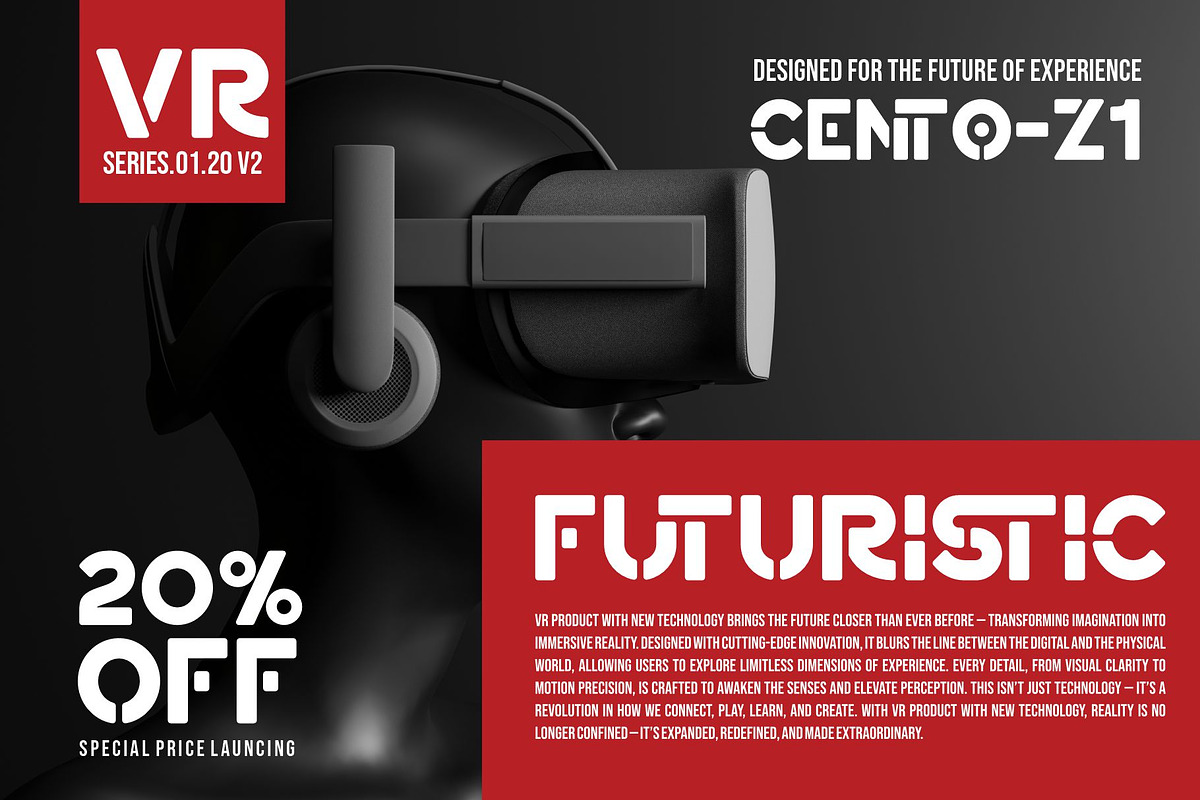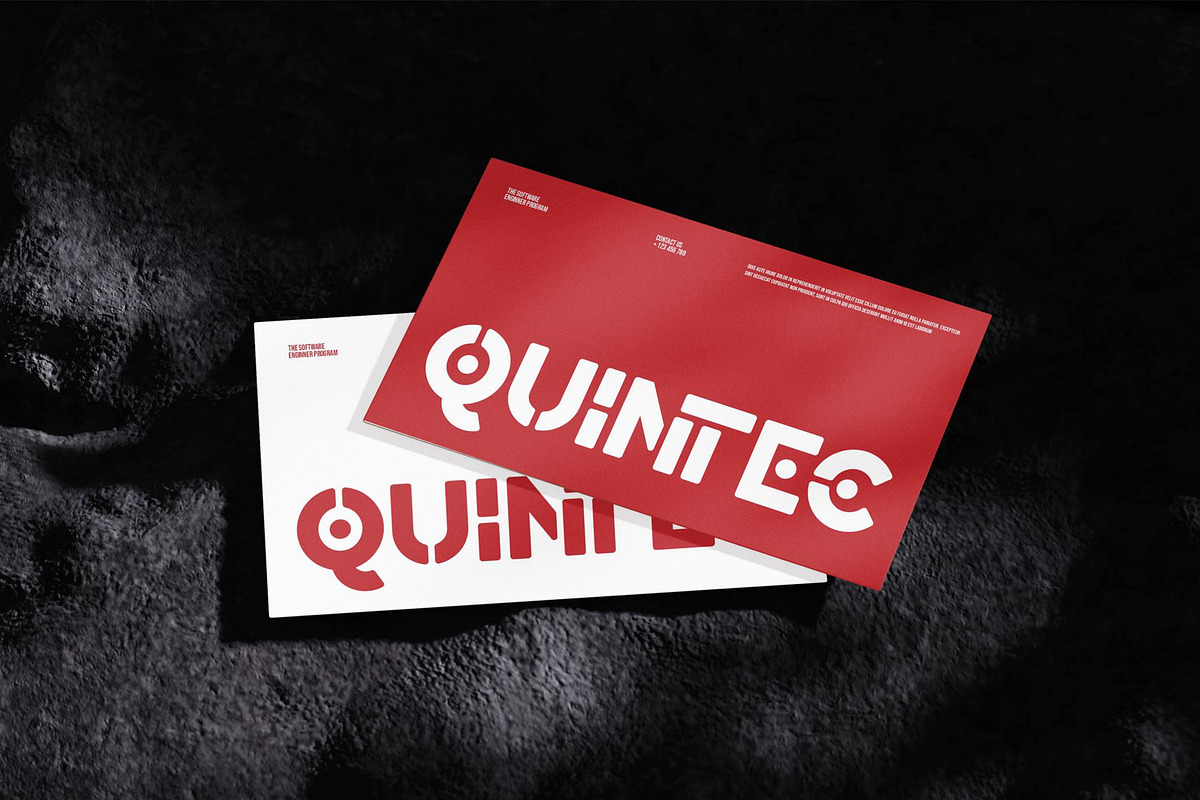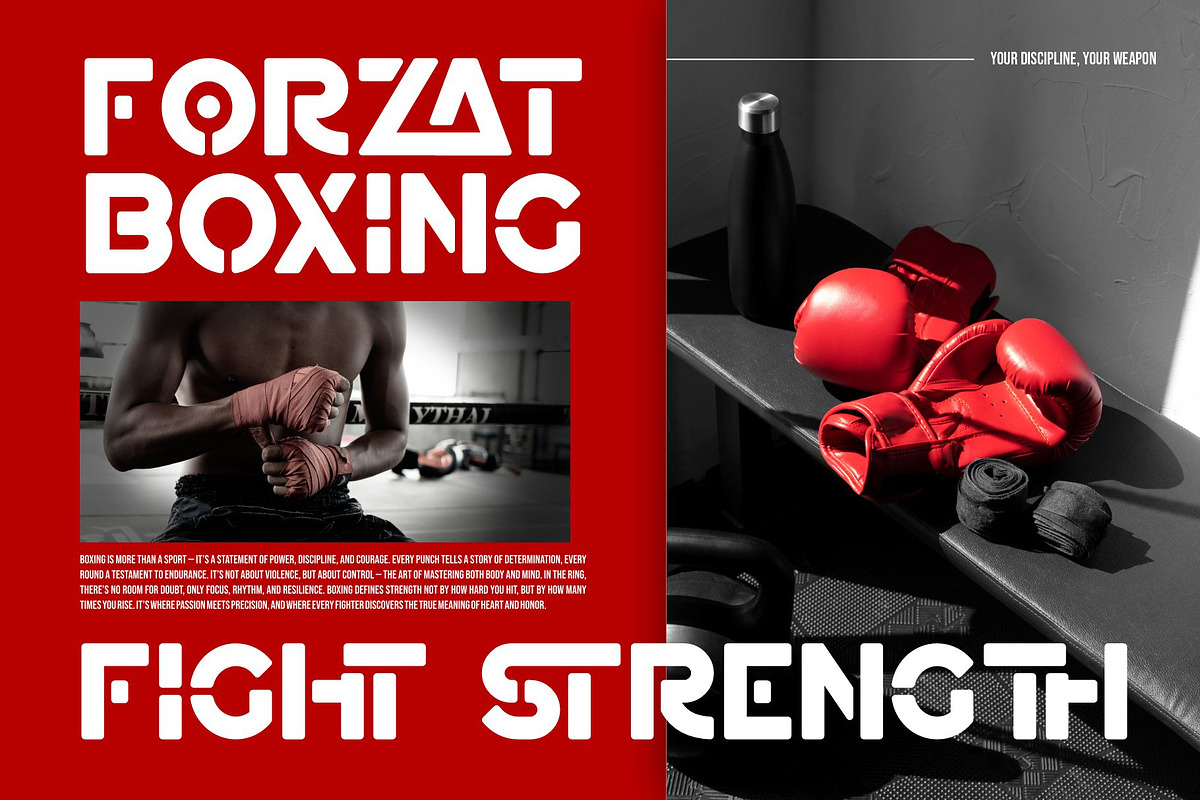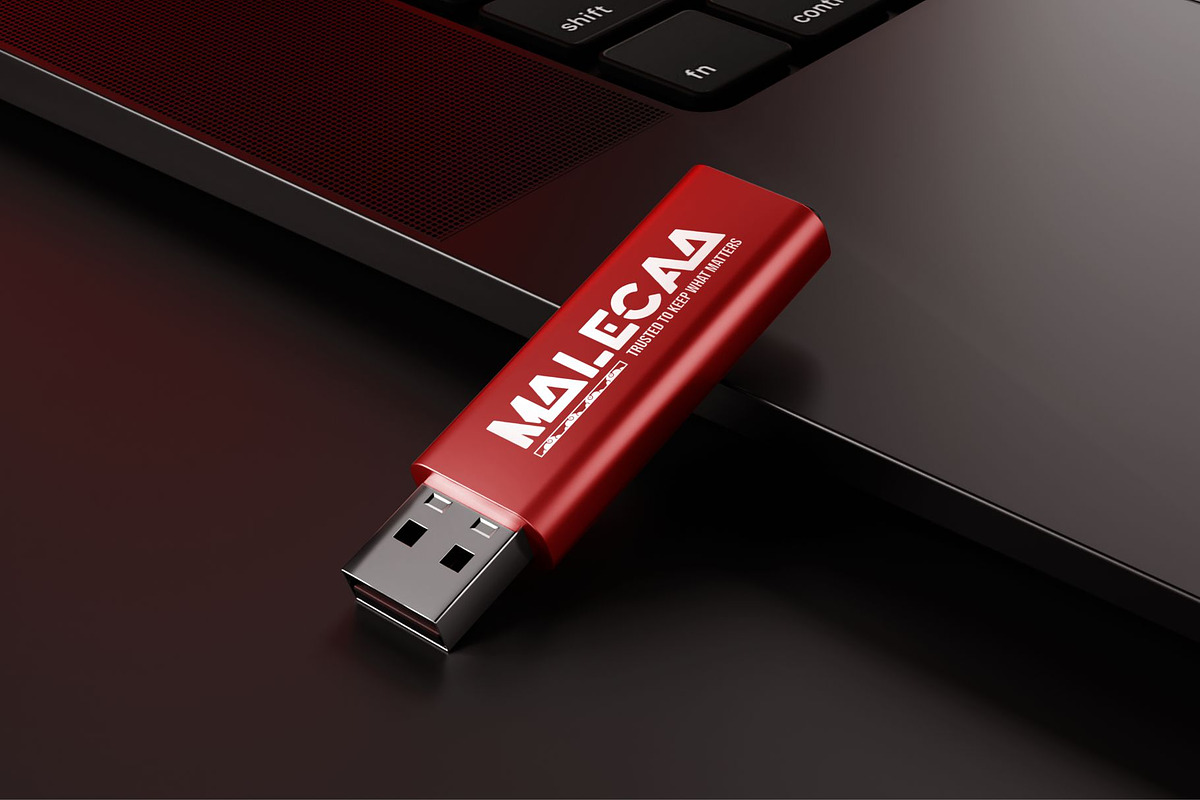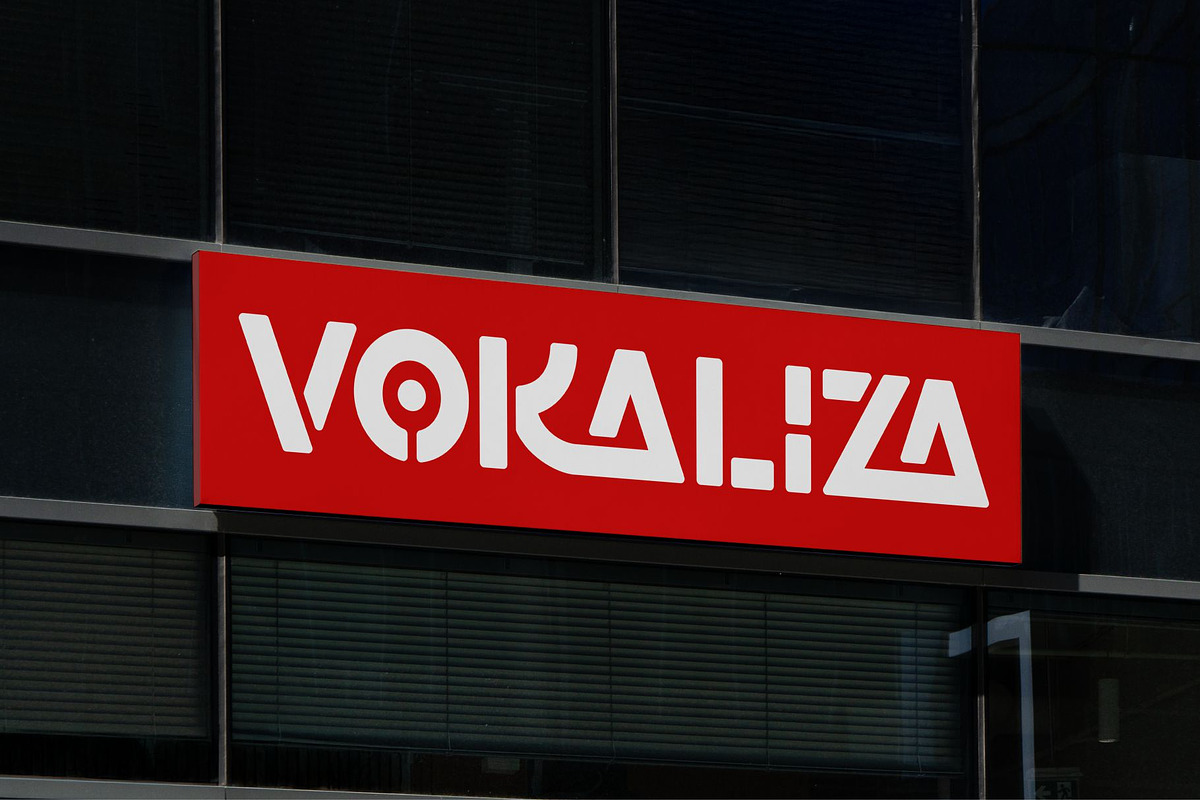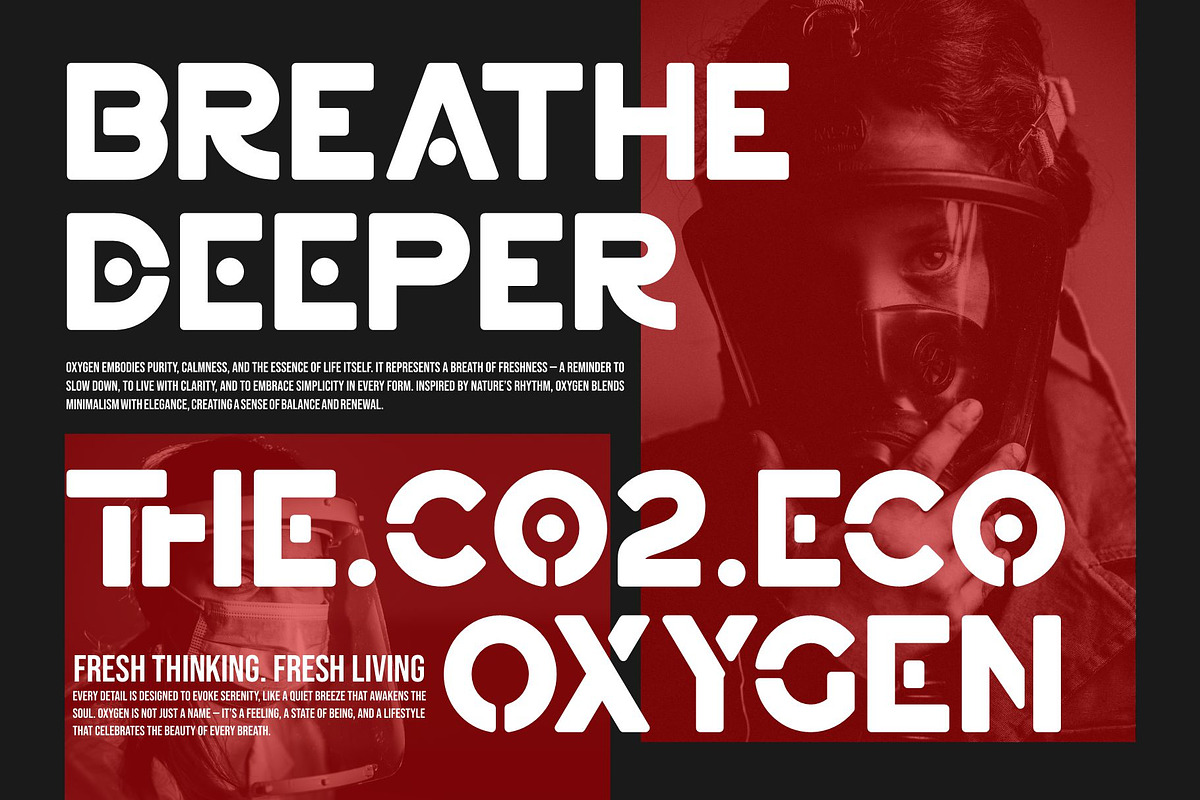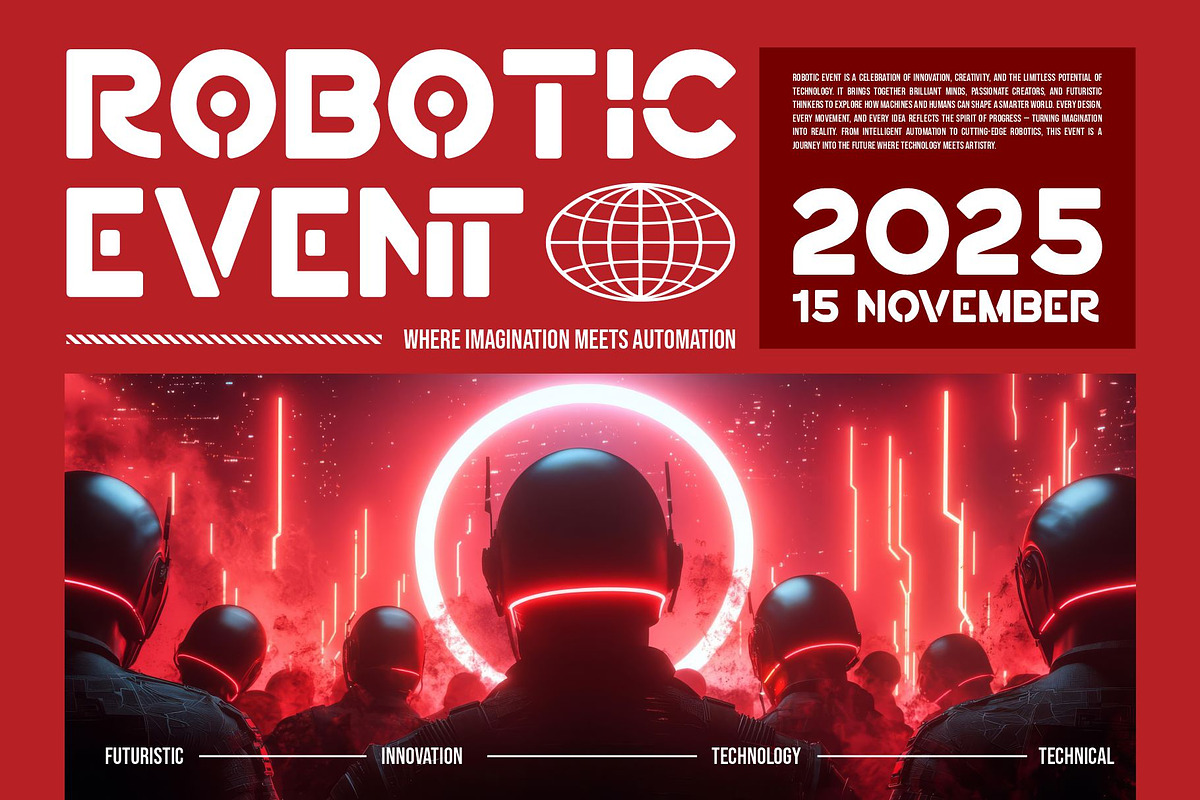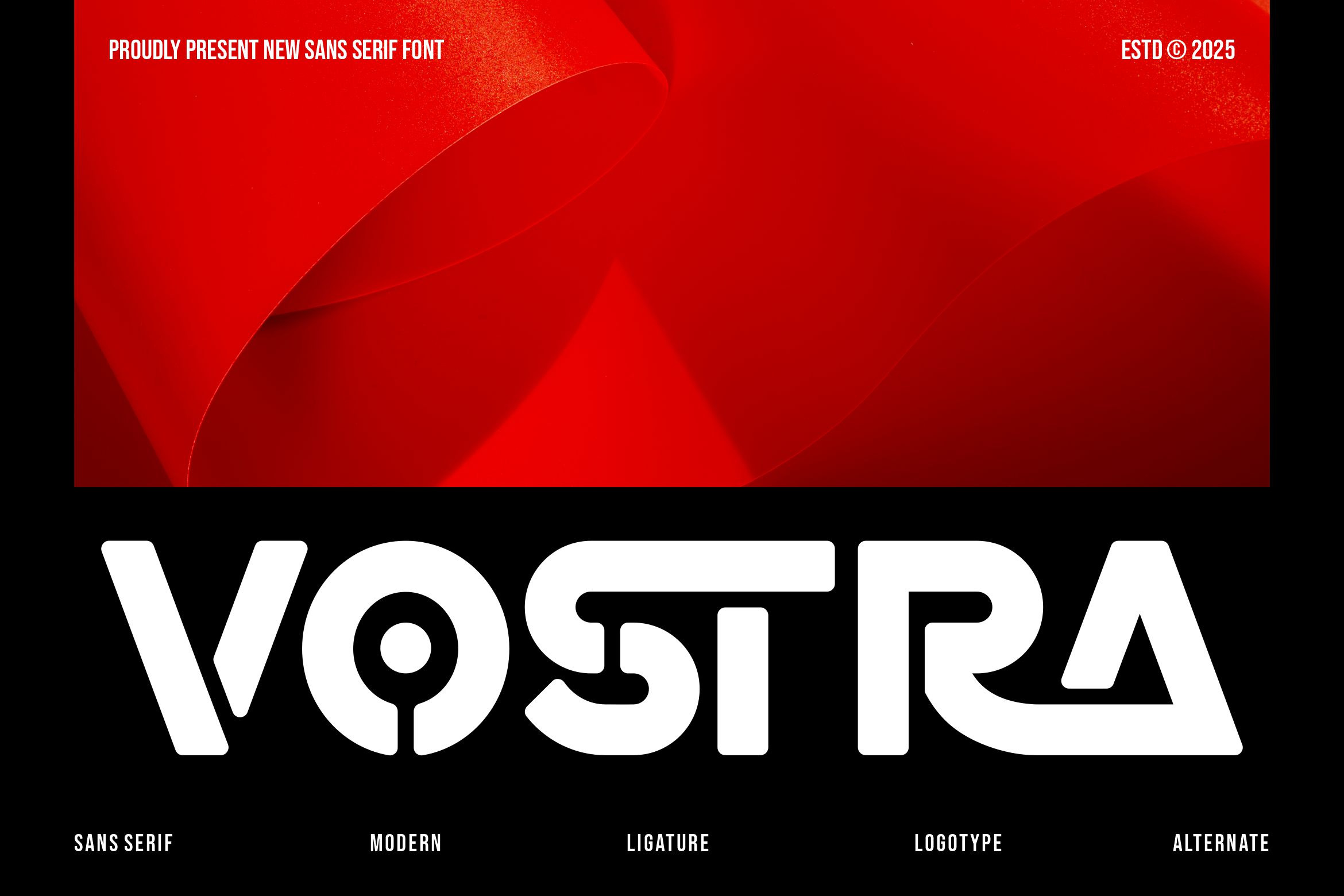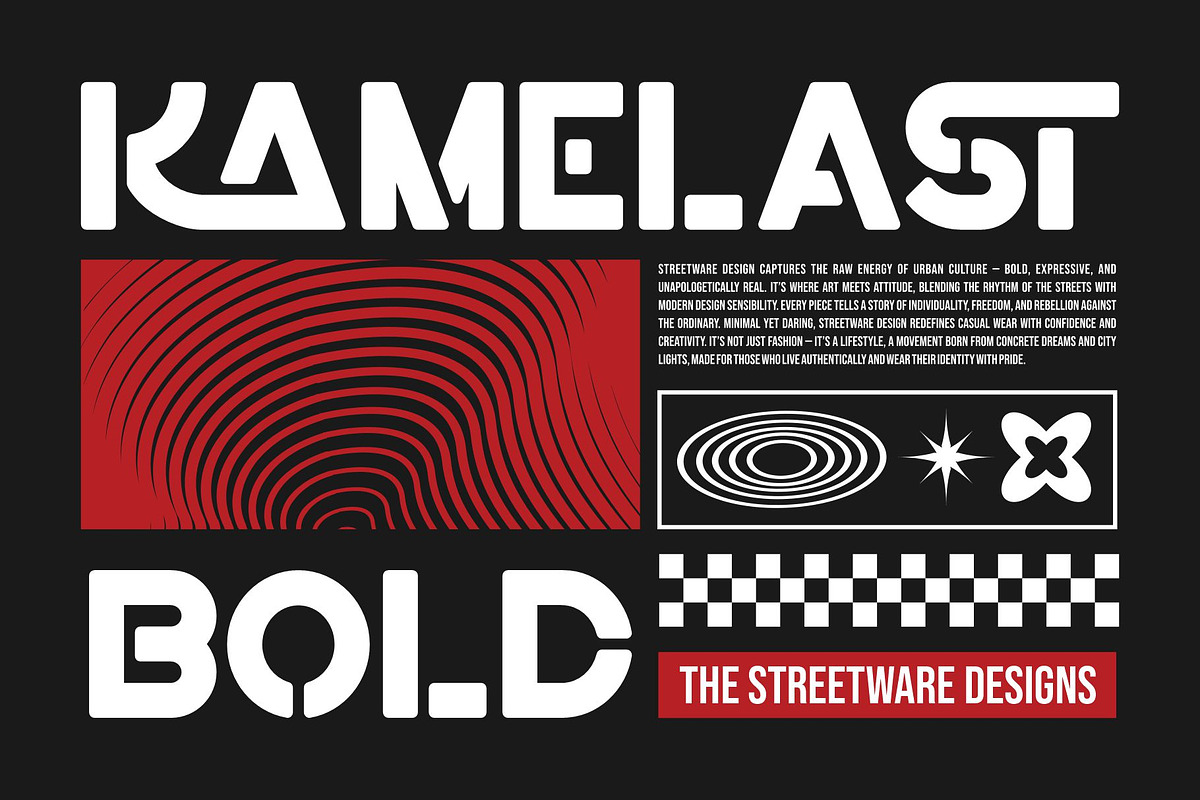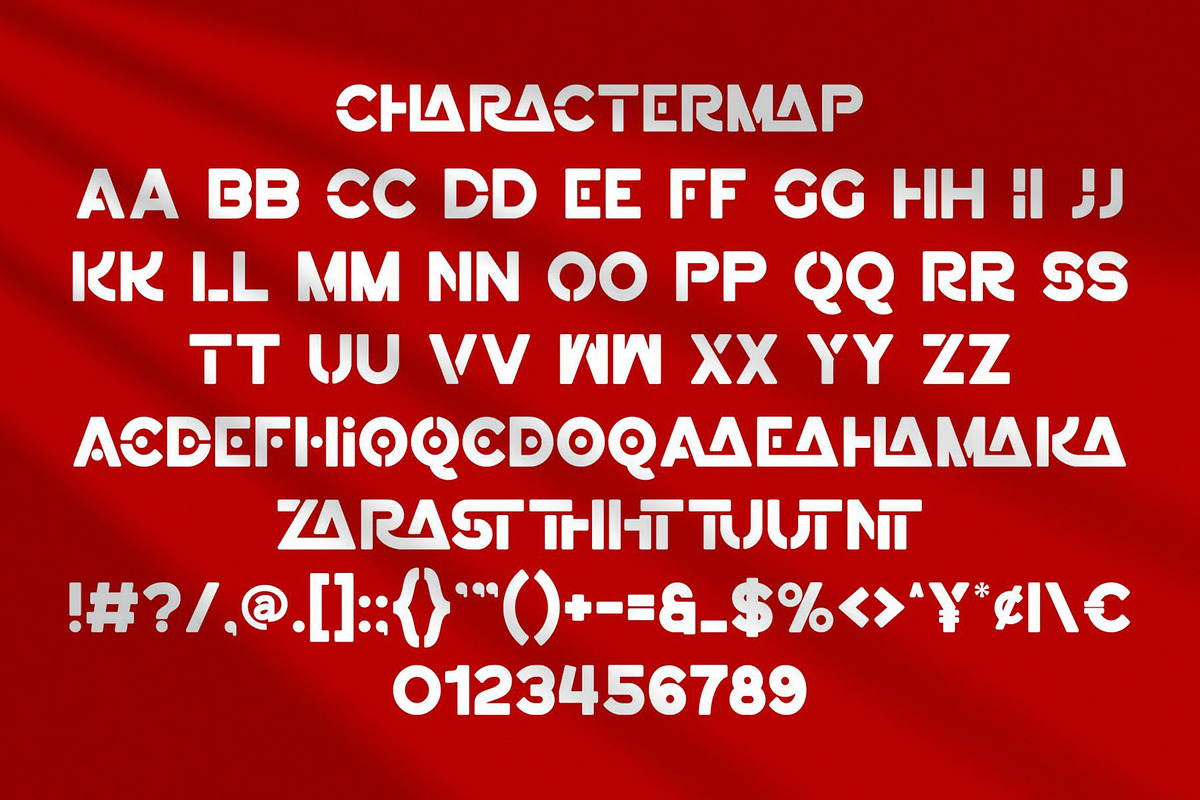
Vostra || Futuristic Sans Serif Font
Vostra Sans Serif is a modern and futuristic font type for all branding and logo designs. This modern and futuristic sans serif font has a beautiful character. This font is suitable for invitation card designs, cool logos, movie titles, movie names, business cards, book titles, brand names, and various other designs. Vostra Sans Serif is a smooth sans serif font that exudes sophistication and the moment. Its stylish ligatures make this font a perfect partner for any project.